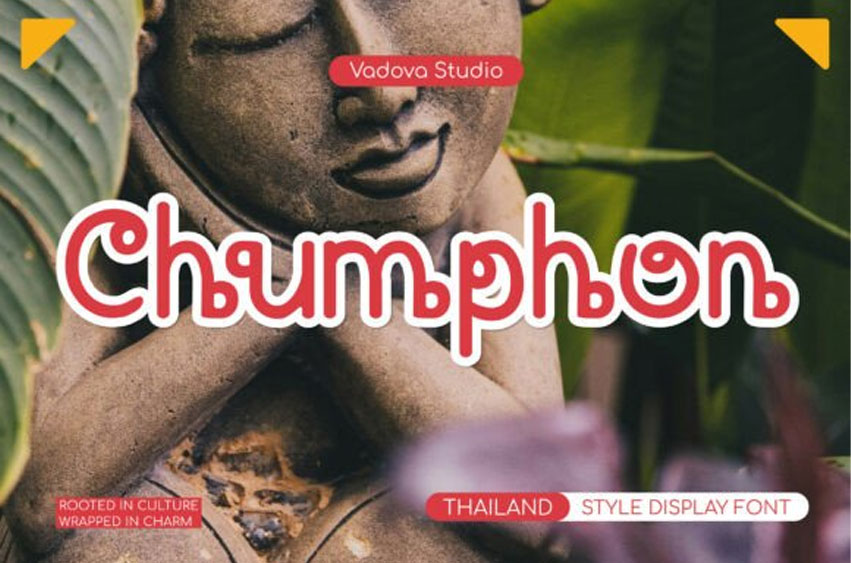
Chumphon Font
Chumphon Font is a playful display typeface inspired by Thai cultural aesthetics, featuring rounded forms, soft curves, and whimsical terminals that create a friendly and expressive visual tone.
Its organic shapes and charming personality make it stand out in vibrant layouts while maintaining a cohesive typographic rhythm. Delivered in high-quality font formats, this typeface is intended for display use and not optimized for long-form body text.